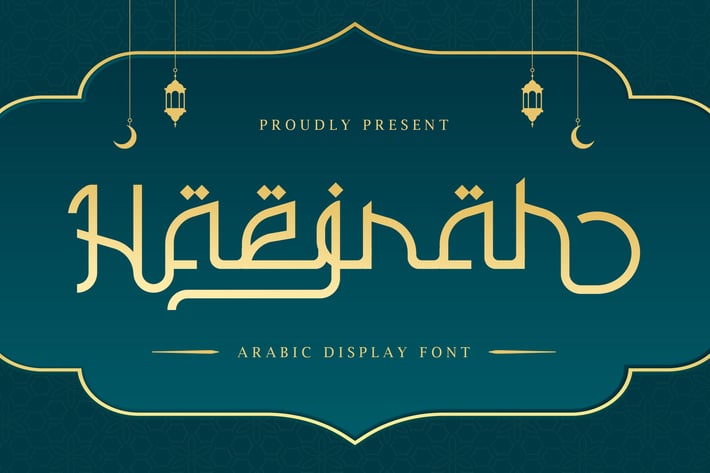
Haejrah - Arabic Display Font
Introducing "Haejrah" - an Arabic display font that seamlessly blends tradition with modernity, offering a captivating typographic solution for your designs.
With its elegant calligraphic strokes and intricate details, "Haejrah" celebrates the beauty and richness of Arabic script. Whether you're designing posters, book covers, branding materials, or digital artworks, this font adds a touch of sophistication and cultural authenticity to your projects.
Embrace the timeless elegance of "Haejrah" as it effortlessly enhances your designs. With its versatile style and intricate flourishes, this font captures the essence of Arabic calligraphy, ensuring that your creations stand out with grace and allure.
Step into the world of Arabic typography with "Haejrah" and let your designs shine with its mesmerizing beauty and cultural resonance.
– Lowercase
– Ligature
– Alternate
– Multilingual Support
With its elegant calligraphic strokes and intricate details, "Haejrah" celebrates the beauty and richness of Arabic script. Whether you're designing posters, book covers, branding materials, or digital artworks, this font adds a touch of sophistication and cultural authenticity to your projects.
Embrace the timeless elegance of "Haejrah" as it effortlessly enhances your designs. With its versatile style and intricate flourishes, this font captures the essence of Arabic calligraphy, ensuring that your creations stand out with grace and allure.
Step into the world of Arabic typography with "Haejrah" and let your designs shine with its mesmerizing beauty and cultural resonance.
– Lowercase
– Ligature
– Alternate
– Multilingual Support